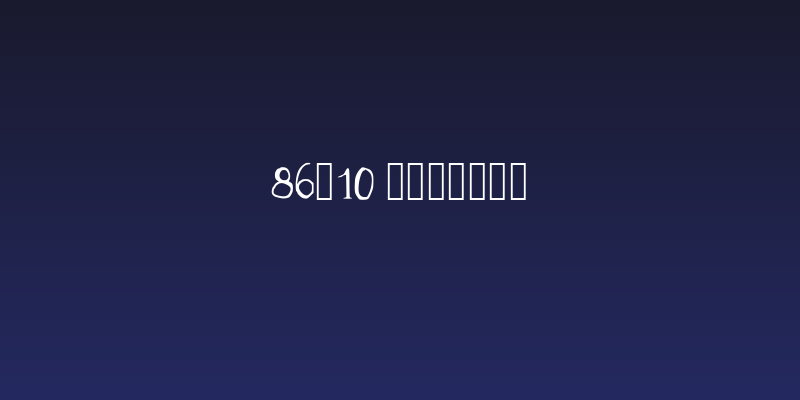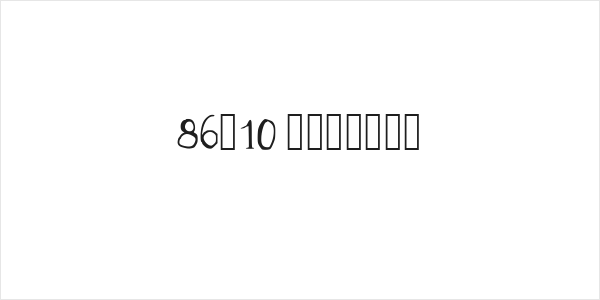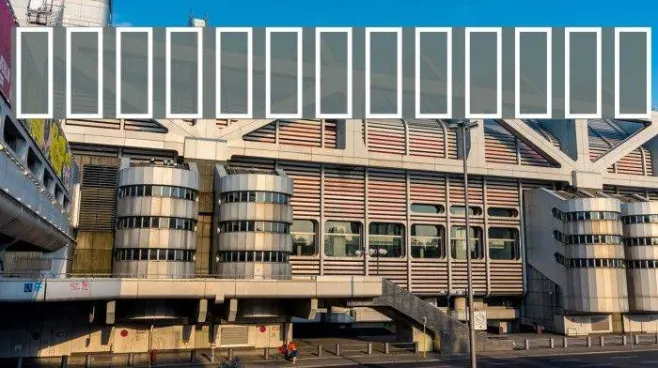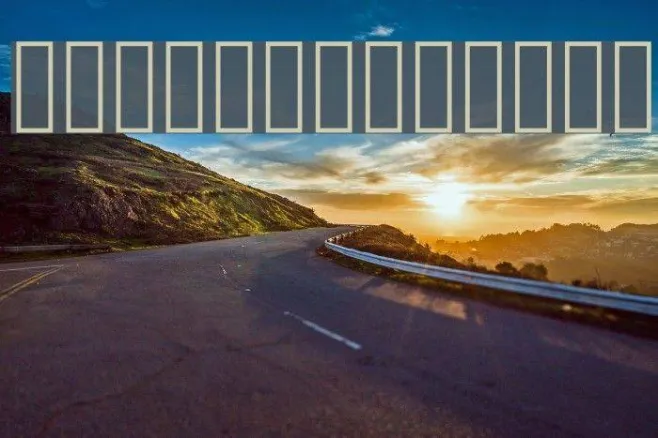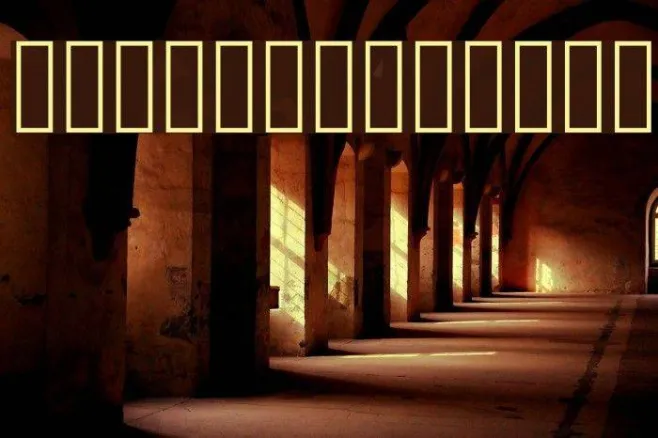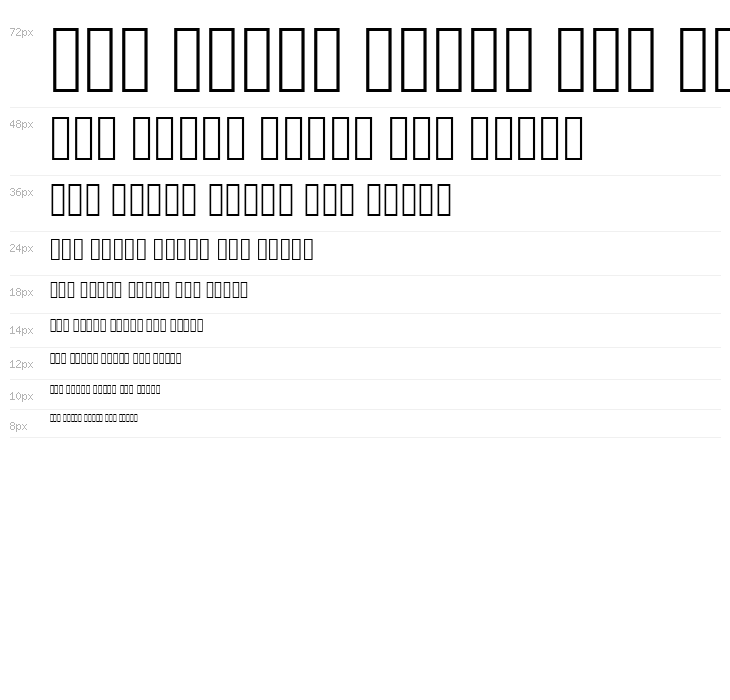
86Q10 Regular Font
86Q10 Regular Description
This font features a playful and casual handwritten style, characterized by its smooth curves and slightly irregular strokes. The letters are crafted with a natural flow, giving it an informal and approachable appearance. The numerals and special characters maintain the same handwritten aesthetic, ensuring consistency throughout. The font's design is versatile, making it suitable for a variety of creative projects that require a personal touch. Its legibility and unique style make it a great choice for both digital and print media.